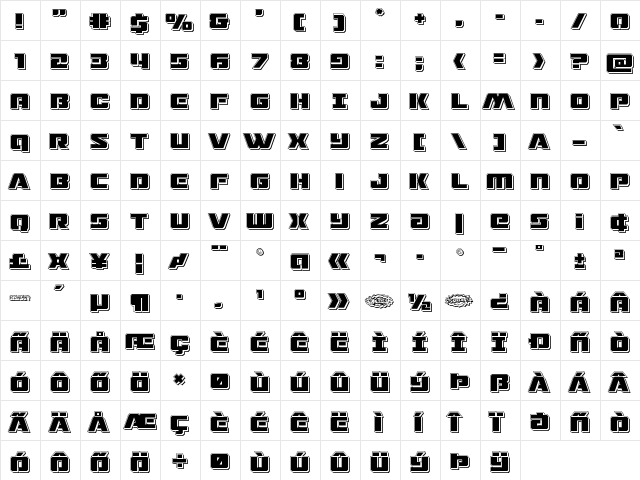
Drone Tracker Punch Regular Font Preview
Drone Tracker Punch Regular
Drone Tracker Punch Regular Font Details
Design Context for Drone Tracker Punch Typeface
Drone Tracker Punch is a composed and adaptable typeface that performs quietly and consistently across a wide range of design contexts.